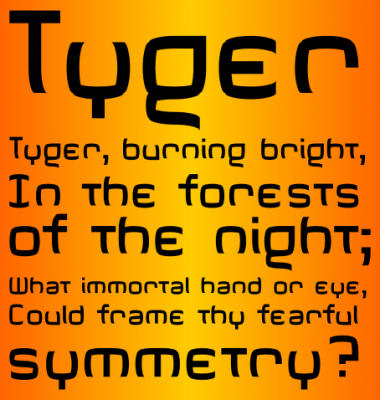
• Something I've been working on for a while, but haven't been able to finish until composite stacking was available. Alternates available in Extended Latin A
Yes, these are real curves.
This is really good. I particularly like the l/c g and t. The overshot bowls of the rounded letters work really well, giving it an extra informal kick.
Awesome Futuristic font!
Another greeeat font, master. And the choice of Blake's poem is excellent!: "Tigre, tigre, que te enciendes en luz
por los bosques de la noche
¿qué mano inmortal, qué ojo
pudo idear tu terrible simetría?" Wow.
A wonderful, yet simple design with luscious curves. I could only guess the tricks behind. Yes, the lower case is particularly good. There is a small detail you can't see on the - otherwise superb - demo picture: a pretty little indenture at the corners. 10/10
The curves are immaculate, but I must say that I feel some of the overshoots are too much. Even 1/4 of a brick is obvious when you are working with glyphs at this small size. Just look at the viewer and compare T,U or Y,Z. 9/10 still because of egyMWQ
@3moDuDe - I agree - I tried adding rounded ends onto the terminals, but it ruined the look I was going for, this was the best compromise I could find within the contstraints of FontStruct.